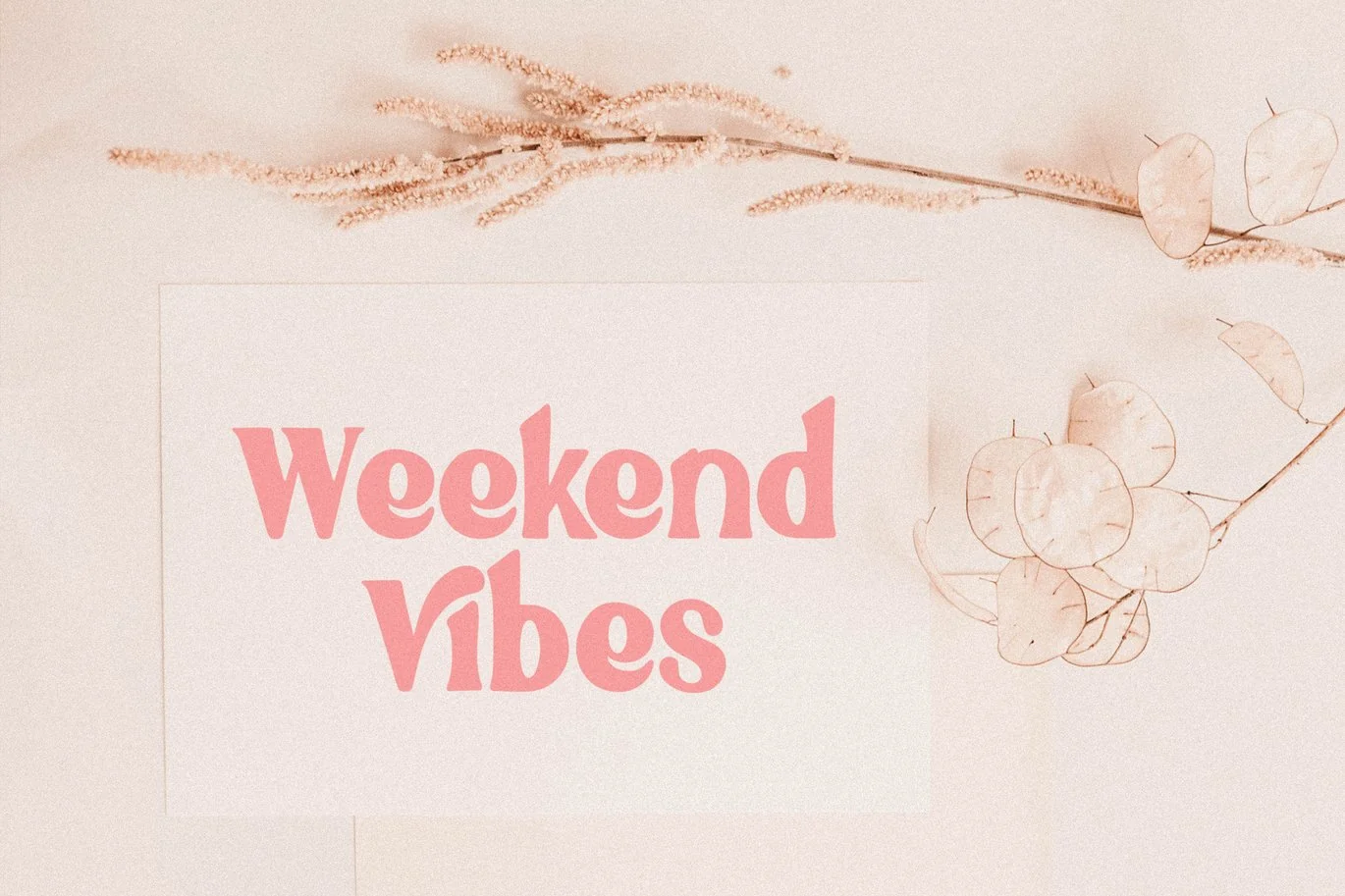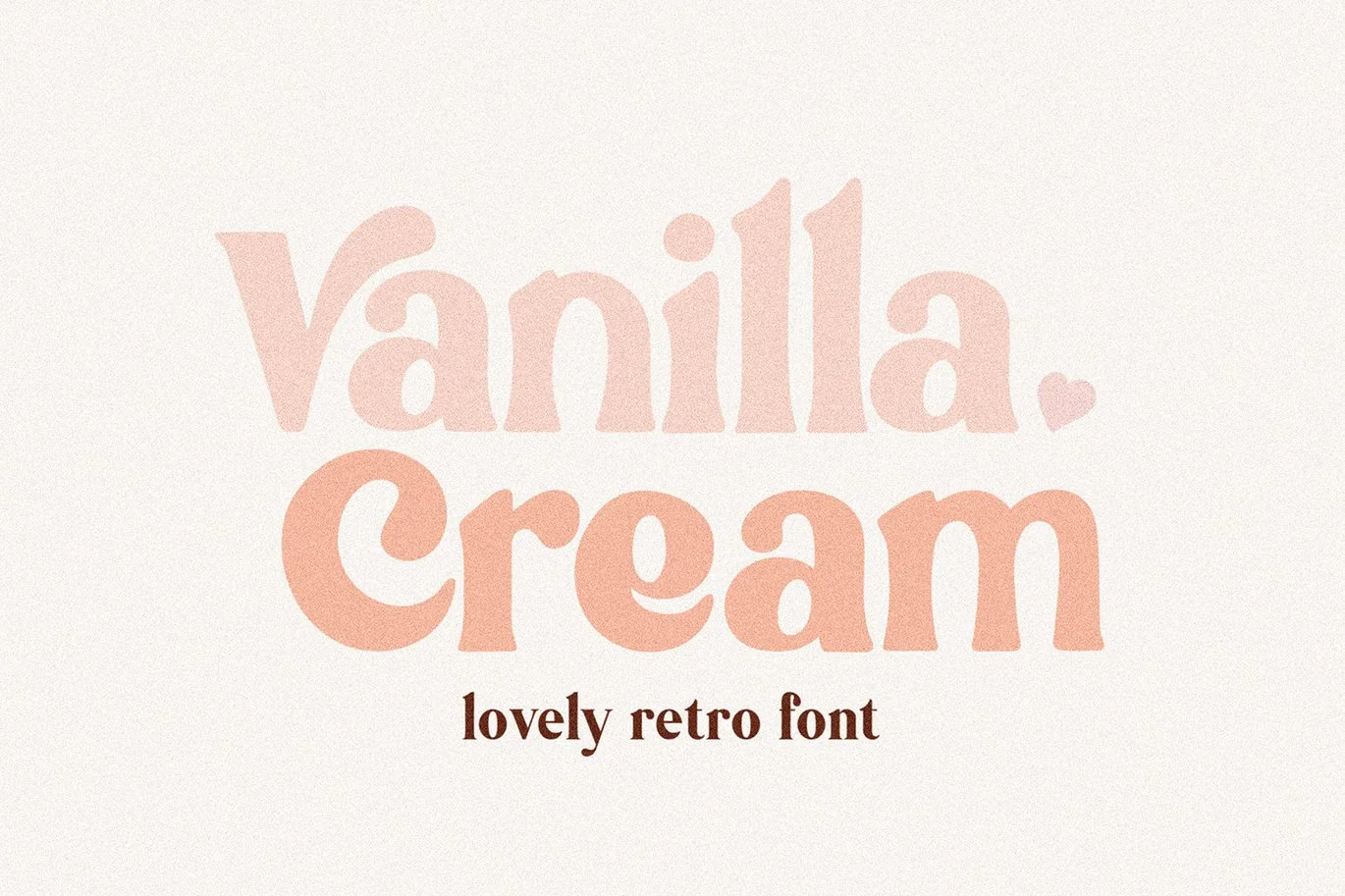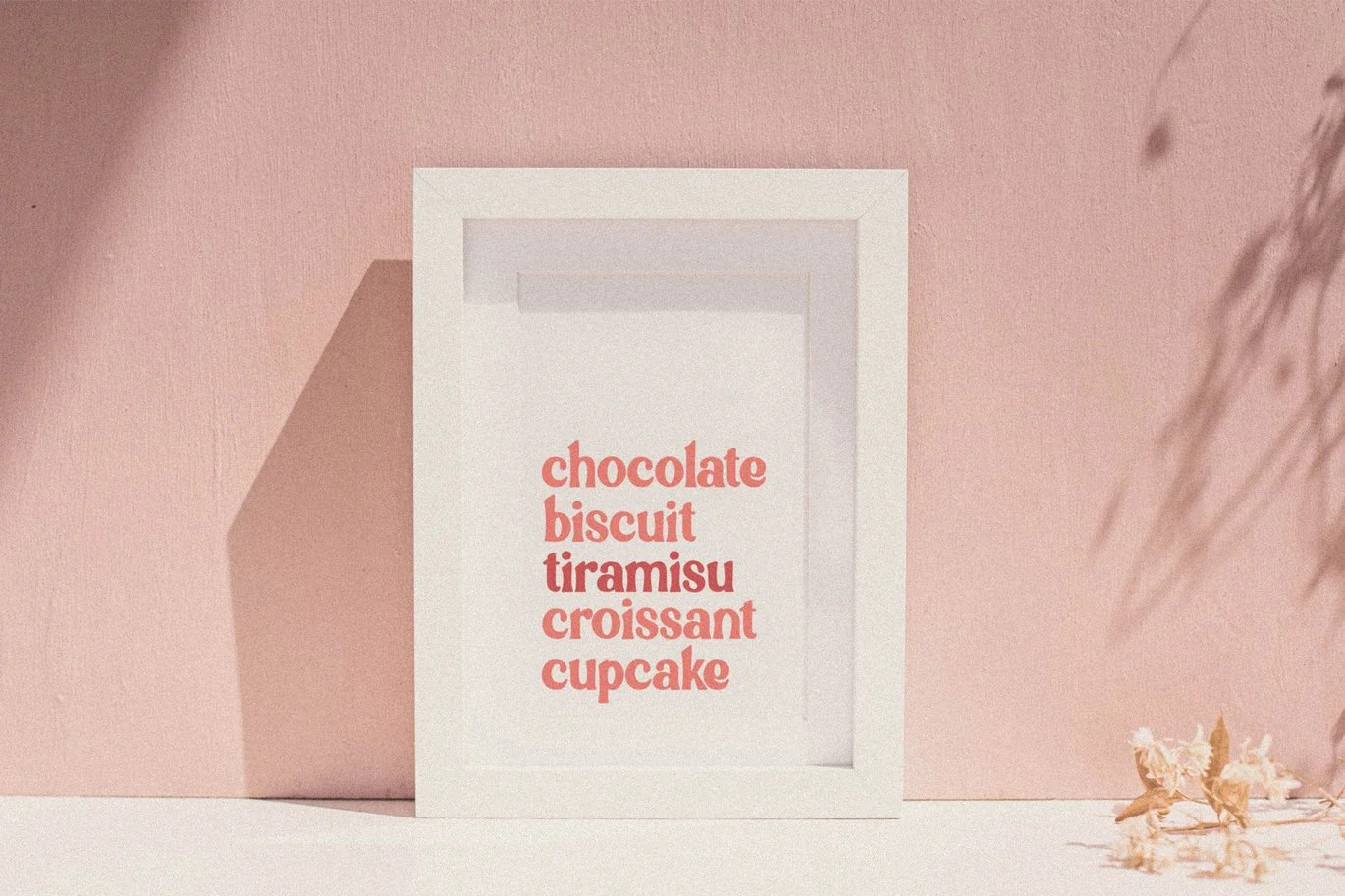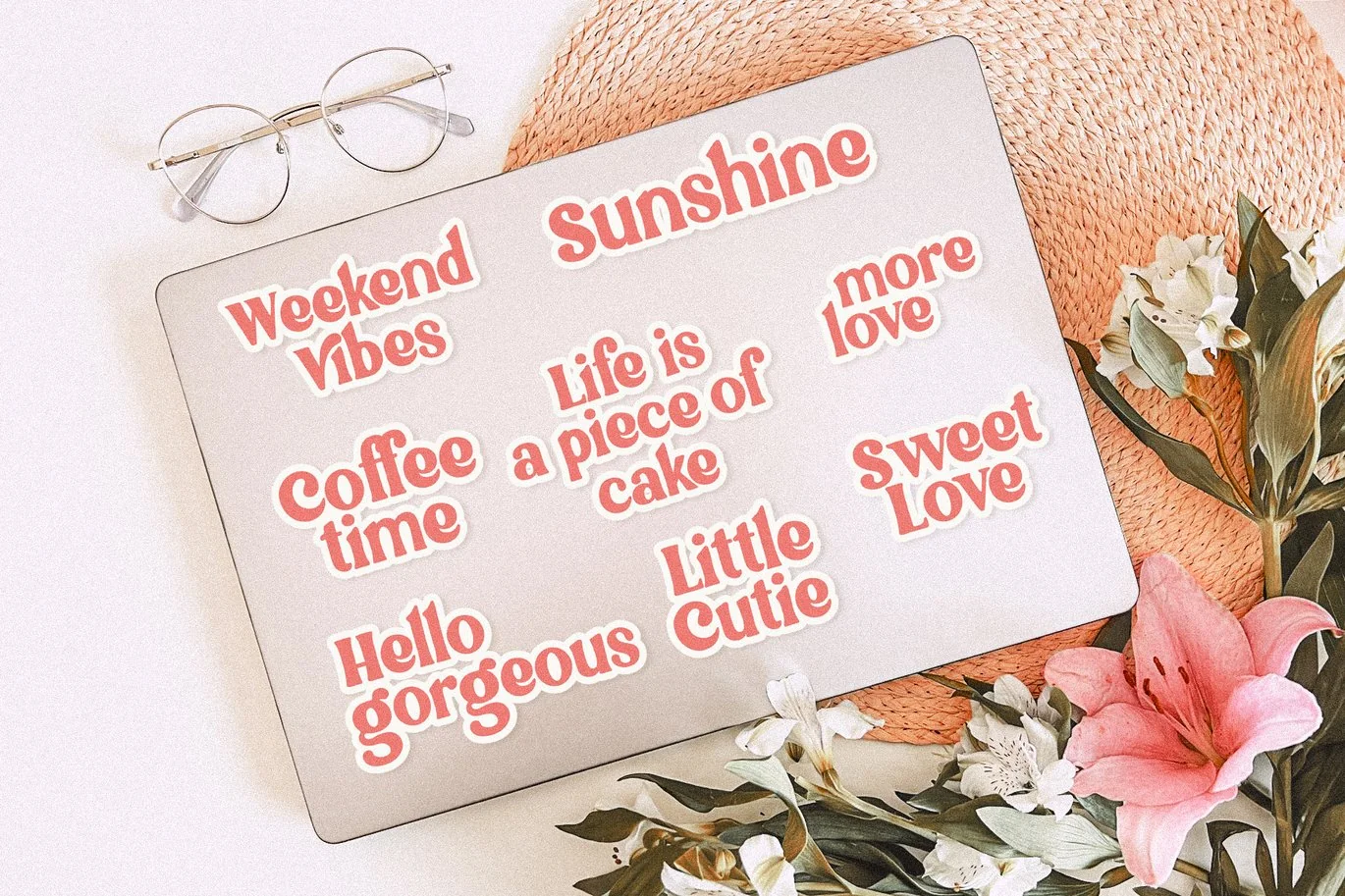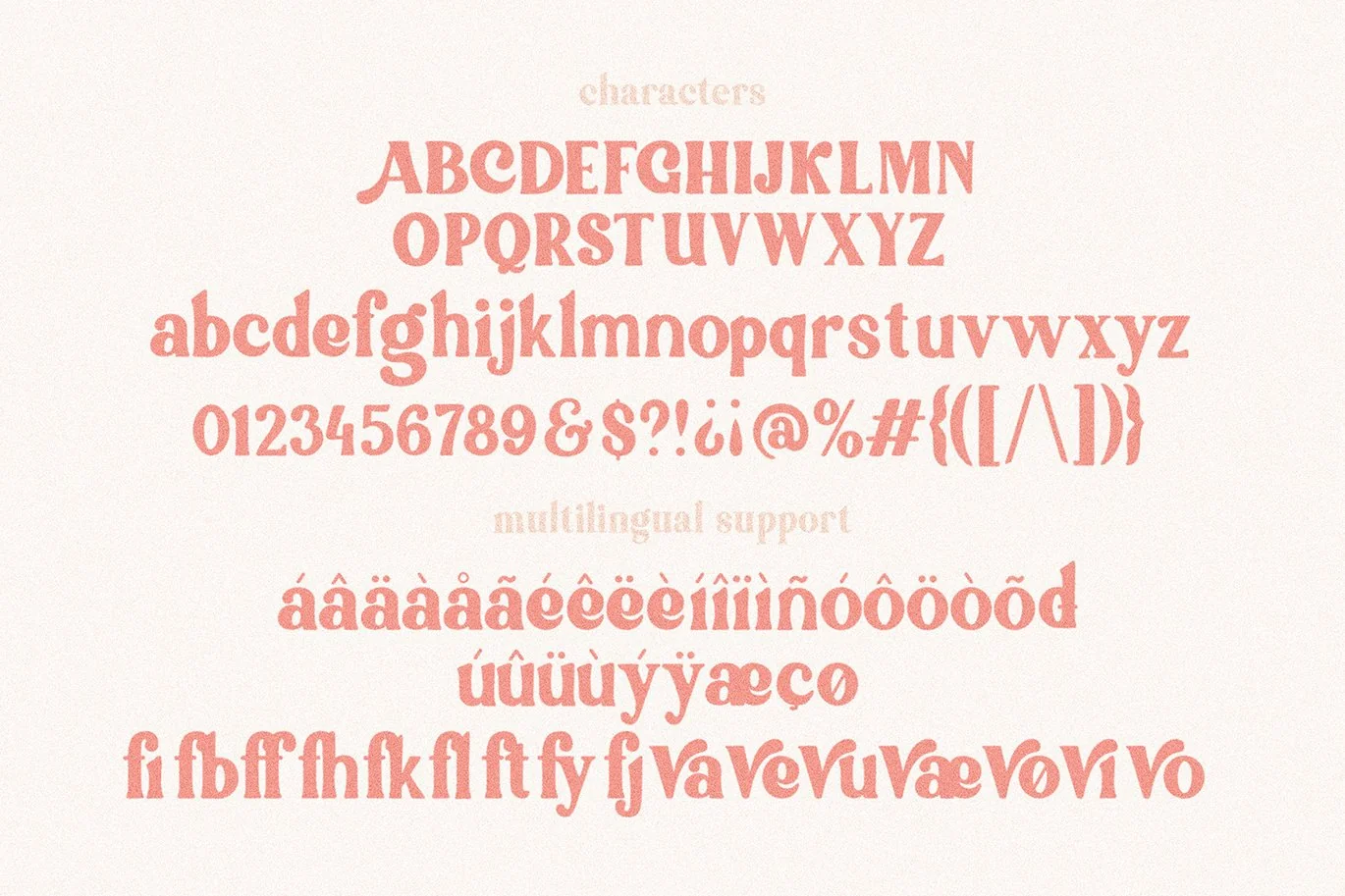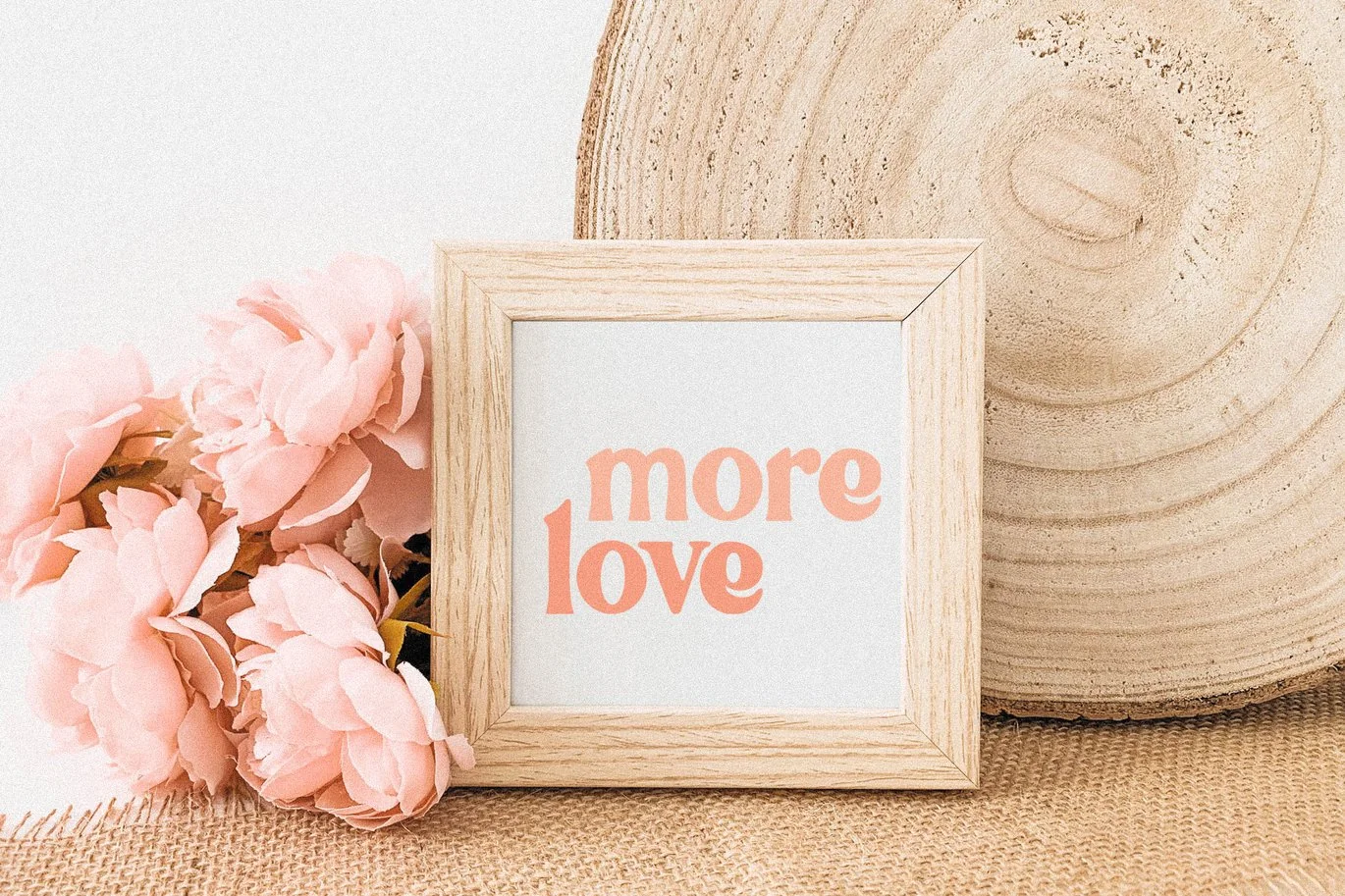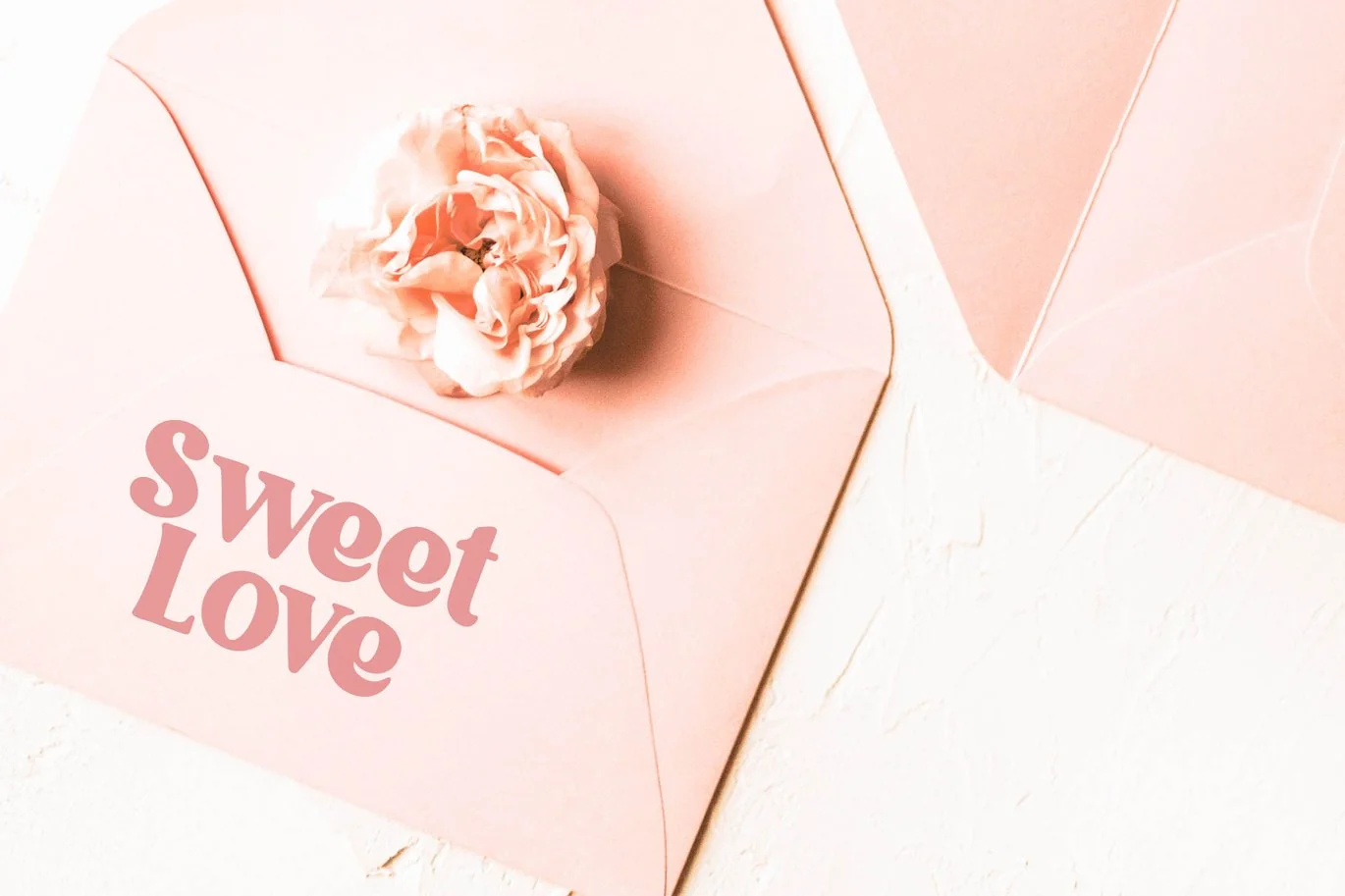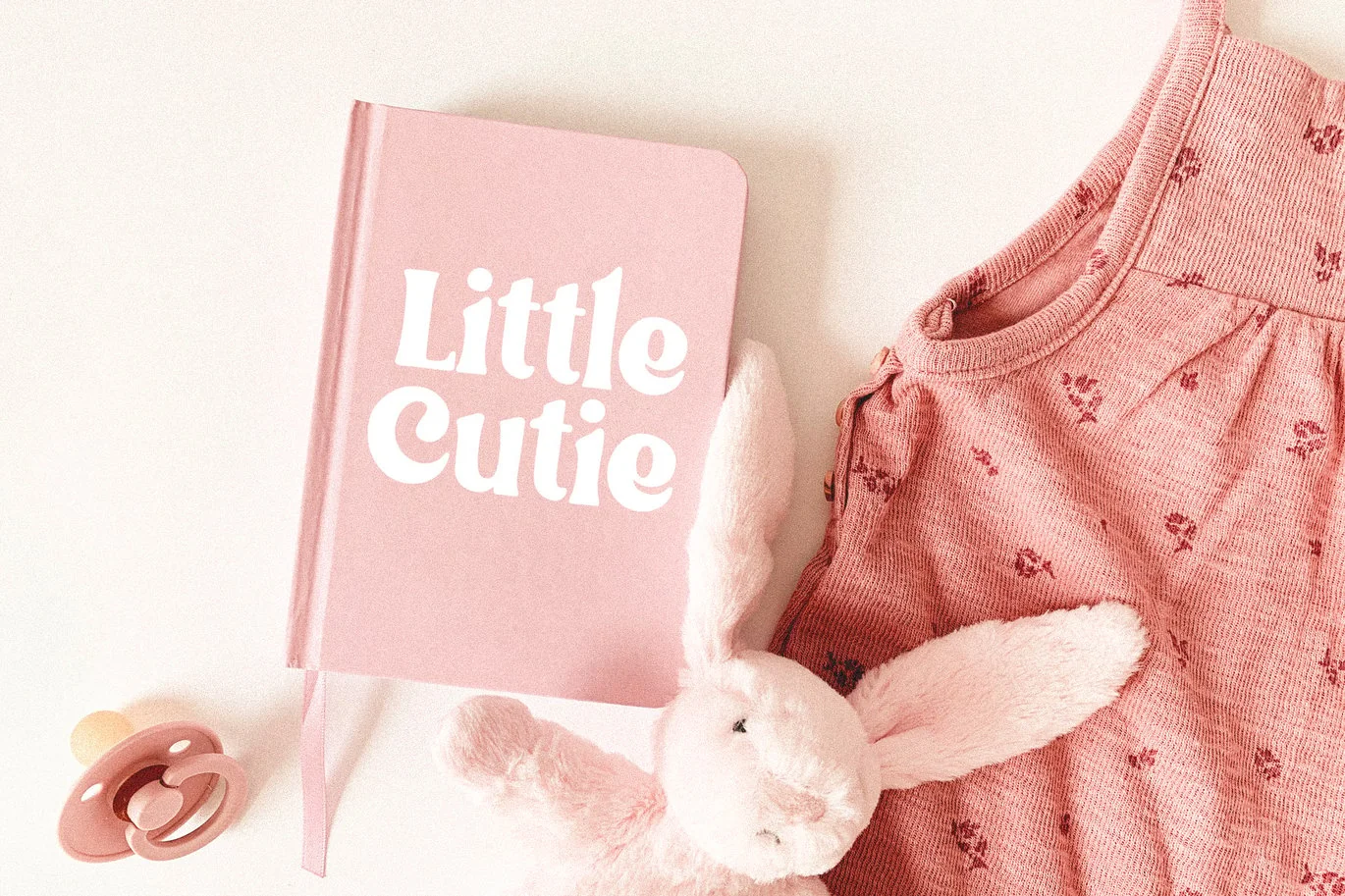
Vanilla Cream Retro Font
Vanilla Cream – a retro handwritten font. Perfect to create stickers, quotes, prints, cricut projects, sublimation designs and svg files.